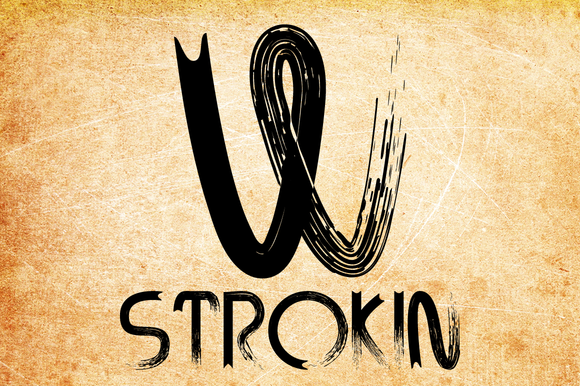
Step into the captivating world of Strokin Font, where every letter dances with character and raw energy. This inky, messy display font is a stroke of genius, blending the allure of charcoal with the boldness of paint strokes. It's a font that exudes personality and sets your designs apart.
With Strokin Font, you have a versatile chameleon at your fingertips. Reverse it in lighter tones for a chalky, vintage touch, or add a splash of red to evoke a bold and dramatic aesthetic. The possibilities are limitless, allowing you to effortlessly adapt this font to any project.
But Strokin Font doesn't just stop at aesthetics. It's packed with features that make your life easier. OpenType coded and equipped with various letter pairings, it automatically interlocks characters to create a dynamic and bespoke feel that sets your copy above the ordinary.
So why settle for the mundane when you can unleash the power of Strokin Font? Elevate your designs, ignite your creativity, and make a lasting impact with this font that captivates the senses and leaves an unforgettable mark on your audience.